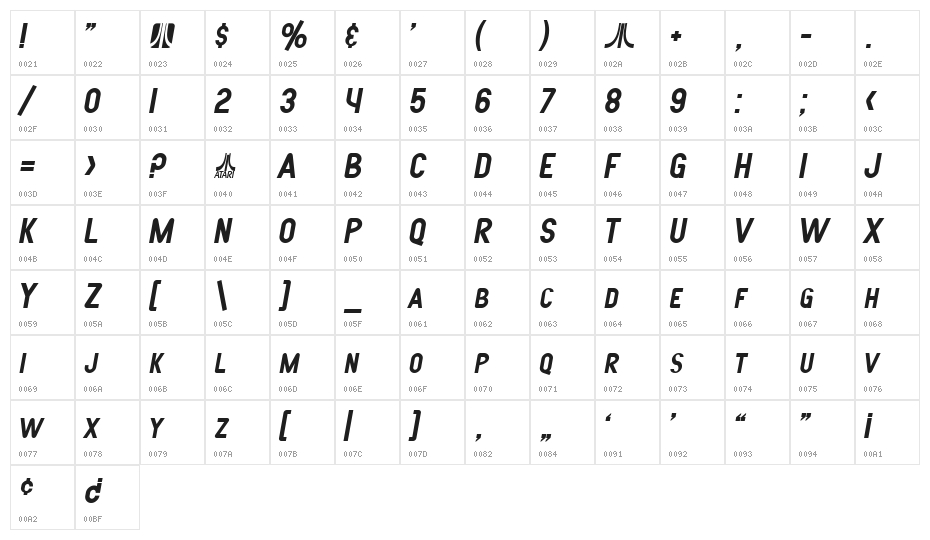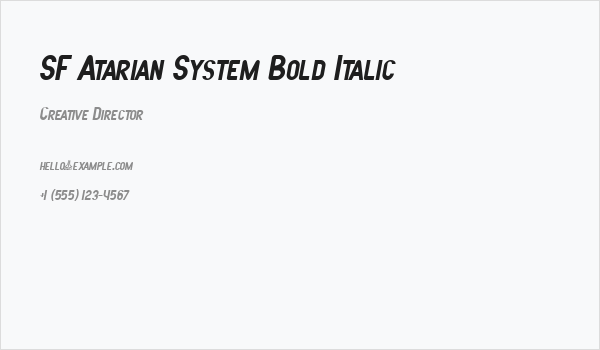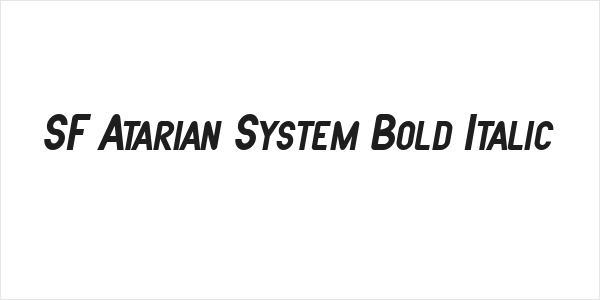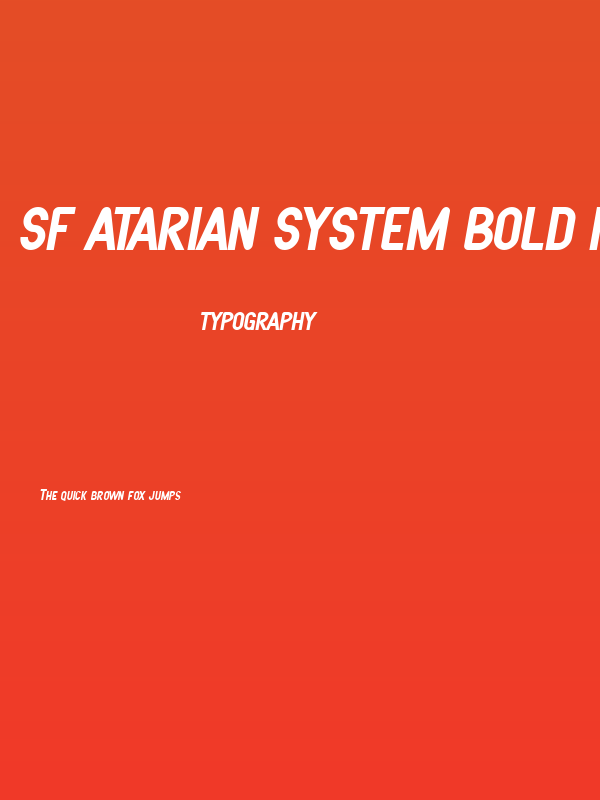
SF Atarian System Bold Italic Font
SF Atarian System Bold Italic Description
This font features a bold and italicized style with a modern and dynamic appearance. The characters are slightly slanted, giving a sense of motion and energy. The strokes are thick and consistent, providing a strong visual impact. The uppercase and lowercase letters maintain a uniform width, contributing to a cohesive look. The numerals are clear and easy to read, matching the boldness of the alphabetic characters. Special characters are designed with the same bold and italicized flair, ensuring consistency across all glyphs.
| Proposed Projects | Ideal for projects that require a strong and energetic typeface, such as sports branding, dynamic posters, or modern advertising campaigns. |